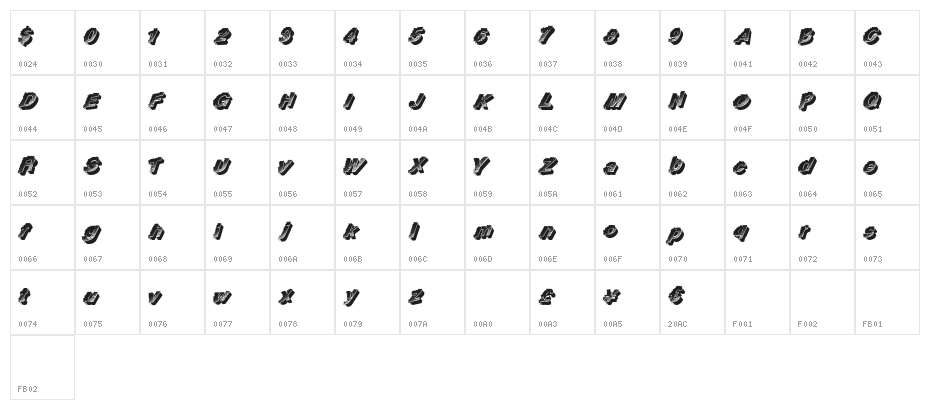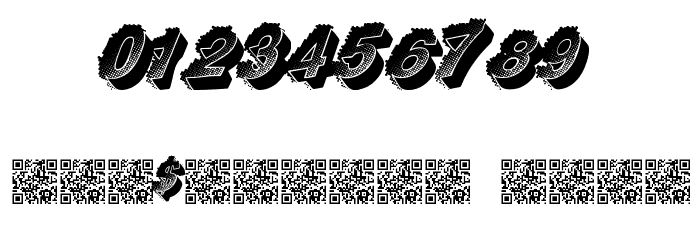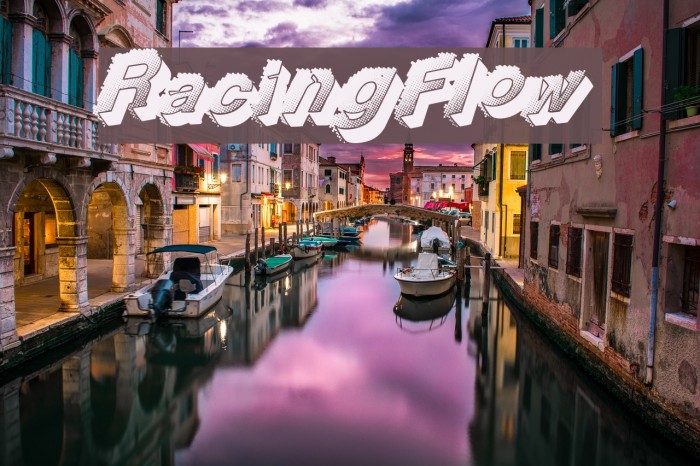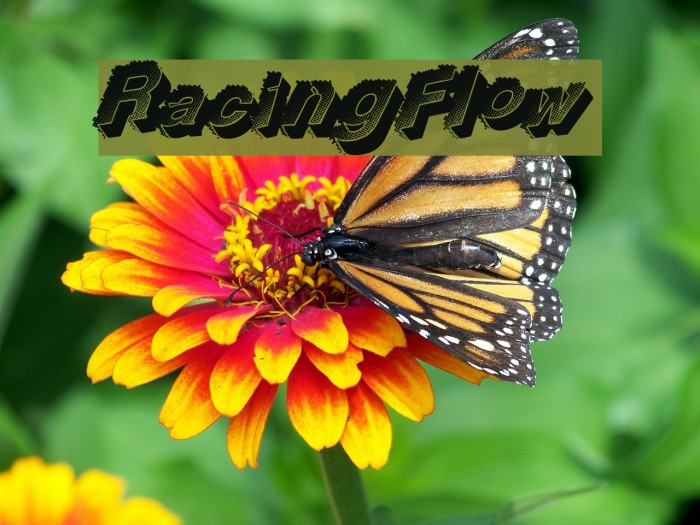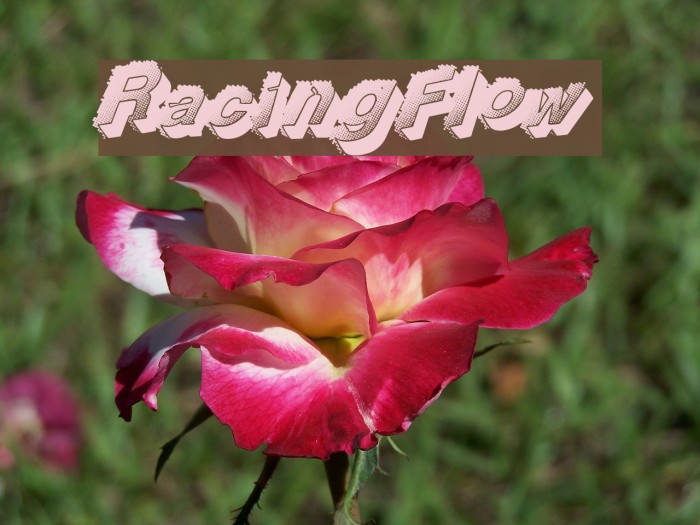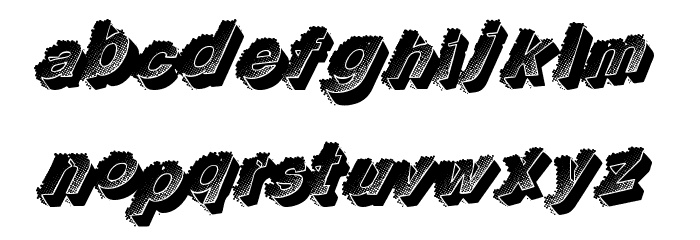
RacingFlow Font
RacingFlow Description
This dynamic and bold font features a striking 3D effect with a shadow that gives each character a sense of movement and depth. The uppercase and lowercase letters are designed with a slanted, italicized style, enhancing the impression of speed and energy. The characters are thick and robust, making them highly visible and impactful. The font includes numbers and a selection of special characters, all maintaining the same energetic style. The overall appearance is modern and eye-catching, suitable for projects that require a sense of excitement and motion.
| Proposed Projects | Ideal for sports branding, racing event posters, dynamic logos, and any design needing a sense of speed and energy. |